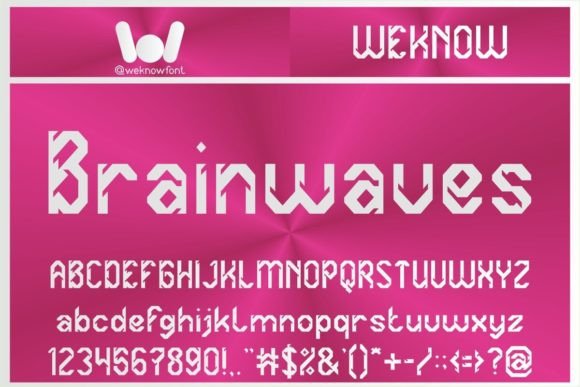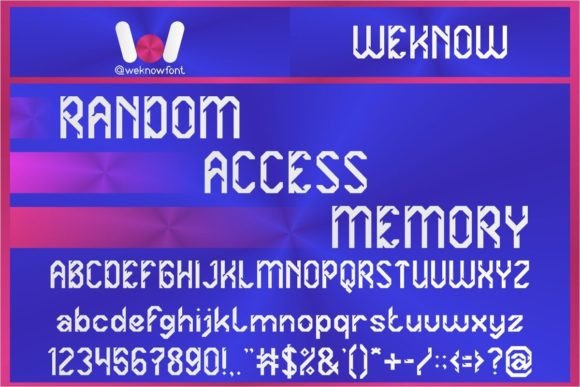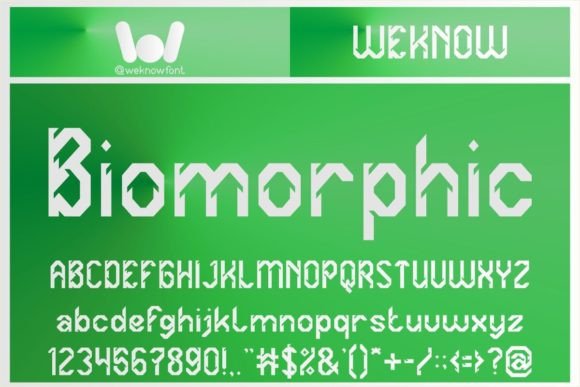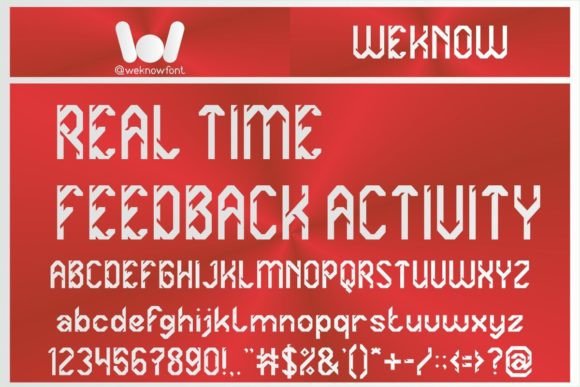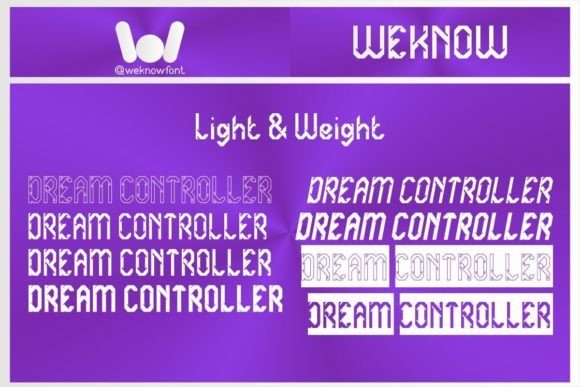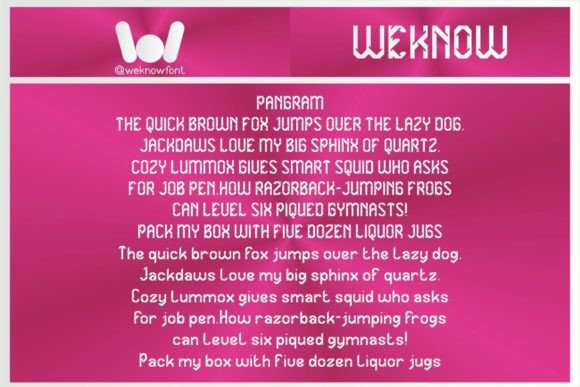
The Dream Controller Font: Your Gateway to Futuristic Designs
First Impressions: A Futuristic Masterpiece
The “Dream Controller” font is an extraordinary techno scifi font that embodies the sheer imagination of the future. Its high-tech, robotic display style makes it an ideal choice for crafting bold logos, striking headlines, and strong corporate identities. What sets it apart is its unique charm, which brings a fresh, cutting-edge vibe to brand identities, making them stand out in a crowded market.
- ✨ Versatility: The Dream Controller font is incredibly versatile, making it suitable for a wide range of applications, from posters and music albums to digital spaces like YouTube and Instagram.
- ✅ Unique Style: Its futuristic appeal is unmatched, adding a stunning, cutting-edge vibe to any design.
- 💡 Easy to Read: Despite its futuristic look, the font remains surprisingly easy to read, even in smaller sizes.
While the Dream Controller font is exceptional, there are a few minor considerations to keep in mind:
- ⚠️ Limited Use in Serif Contexts: Given its bold and futuristic nature, it might not be the best fit for designs that require a serif font or a more traditional look.
- 🤔 Requires Thoughtful Pairing: To maximize its impact, it needs to be paired thoughtfully with other design elements to avoid visual overload.
The Designer Inspiration Behind Dream Controller
The Dream Controller font was inspired by the limitless possibilities of the future. Its designer sought to create a typeface that not only embodied the cutting-edge technology of today but also the imaginative and sometimes surreal landscapes of tomorrow. This font is a testament to the power of imagination and the role of typography in shaping perceptions of the future.
| Font Name | Dream Controller Font |
| Author | weknow |
| Is the Dream Controller font suitable for body text? | While it’s primarily designed for headlines and titles, its readability makes it a potential candidate for short paragraphs of body text, especially in digital formats. |
| Does the Dream Controller font support OpenType features? | Yes, it supports a range of OpenType features, including stylistic alternates and glyphs, allowing for a high degree of customization. |
| Is the Dream Controller font easy to pair with other fonts? | Absolutely. Its unique style makes it a great focal point, and it can be paired with a variety of fonts to complement its futuristic vibe. |
The Dream Controller font is more than just a typeface; it’s a tool for creative expression and innovation. Whether you’re a designer, crafter, or creative hobbyist, it offers a wide range of possibilities for bringing your futuristic visions to life.